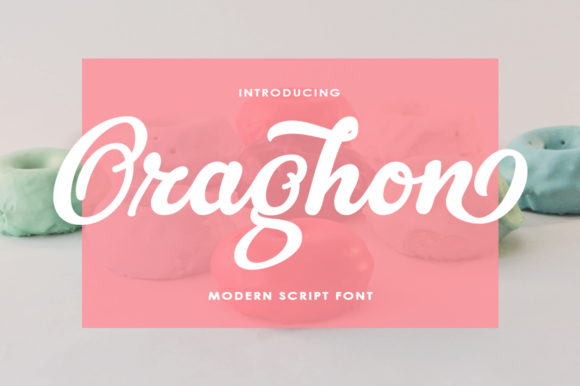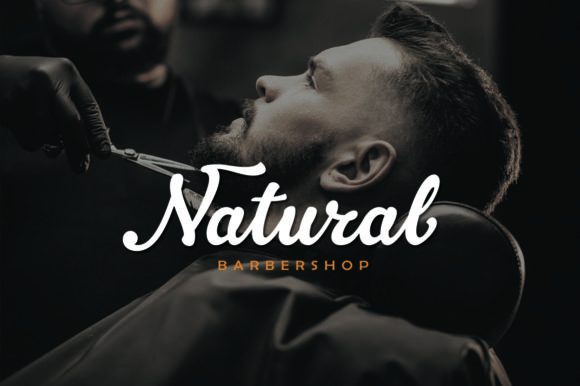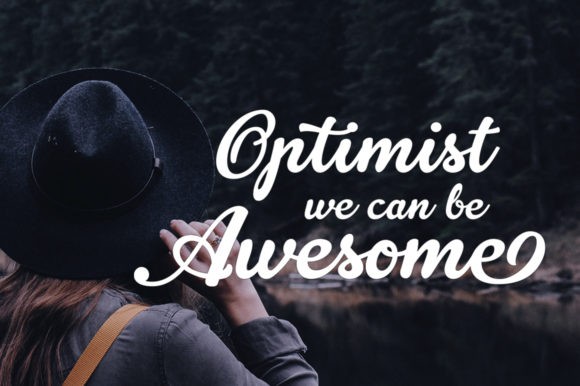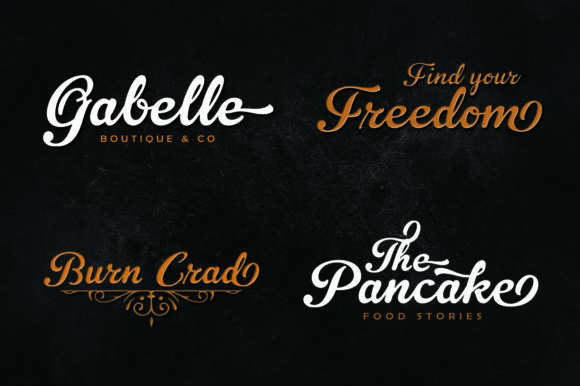
Oraghon Font: Chic Handwritten Script for Wedding Invitations & DIY Projects
About the Oraghon Font
Presenting Oraghon Font, a unique and stylish typeface that will make your work stand out. Oraghon is a beautiful handwritten font, created with the help of a gorgeous brush pen. This font is PUA encoded which means you can access all of the glyphs and swashes with ease! It features a varying baseline, smooth lines, gorgeous glyphs and stunning alternates.
Fall in love with its incredibly versatile style and use it to create gorgeous wedding invitations, beautiful stationary art, eye-catching social media posts, and much more!
Oraghon’s expressive, slightly irregular baseline makes it ideal for headlines, short text blocks, and branding elements where a touch of handcrafted charm is desired. It excels in applications such as logos, wedding stationery, or short social media captions. However, its varying baseline and decorative glyphs make it unsuitable for body text or UI elements requiring high readability.
The organic nature of Oraghon pairs well with clean sans-serifs like Montserrat or Lato for a balanced contrast of formal and informal. For a more luxurious feel, consider pairing it with a classic serif like Garamond or a delicate script like Great Vibes. Avoid pairing it with other highly decorative or handwritten fonts to prevent visual clutter.
Oraghon projects a friendly, yet sophisticated personality. Its handcrafted quality conveys authenticity and warmth, making it suitable for brands focusing on artisanal products, personal services, or events emphasizing romance or natural aesthetics.
Oraghon Font Usage Examples
Oraghon Font Example